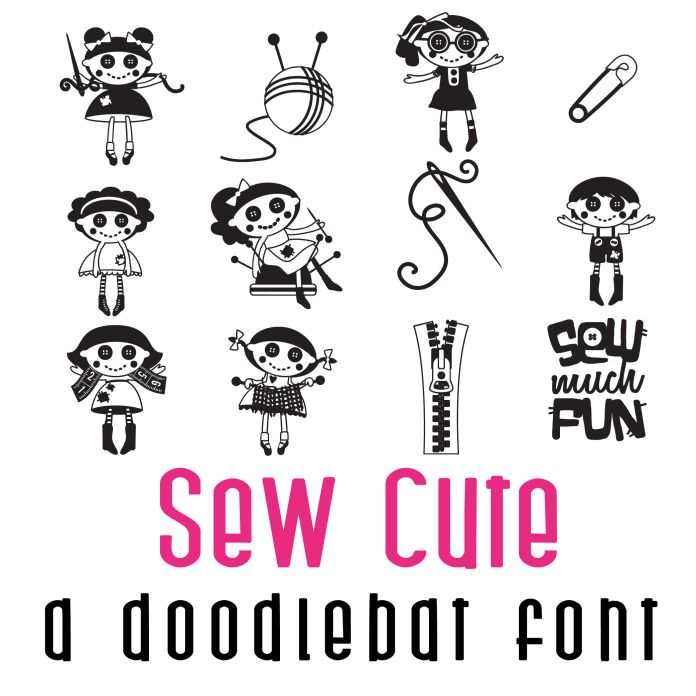
Sew Cute Doodlebat Font is a whimsical and playful dingbat font featuring 26 adorable sewing-themed icons like buttons, spools of thread, needles, and more. Perfect for crafters, hobbyists, and anyone looking to add a touch of charm to their designs. This font is versatile and can be used for various projects such as scrapbooking, card making, and digital designs.